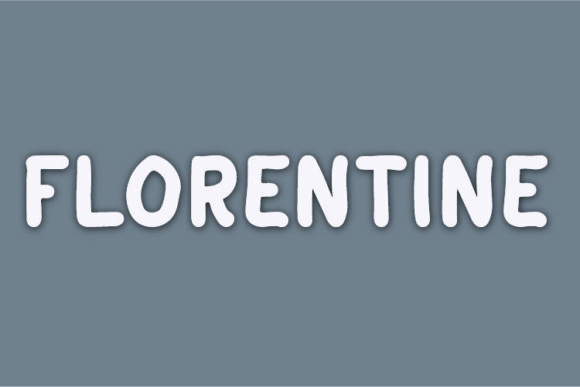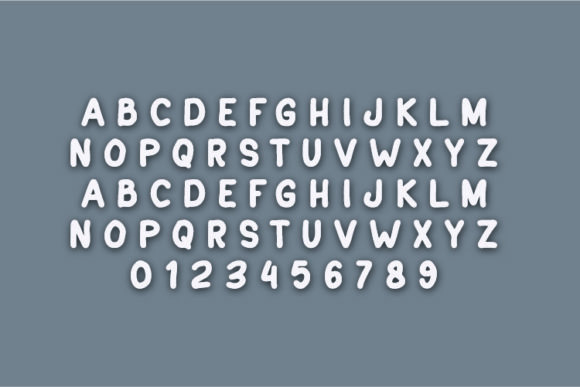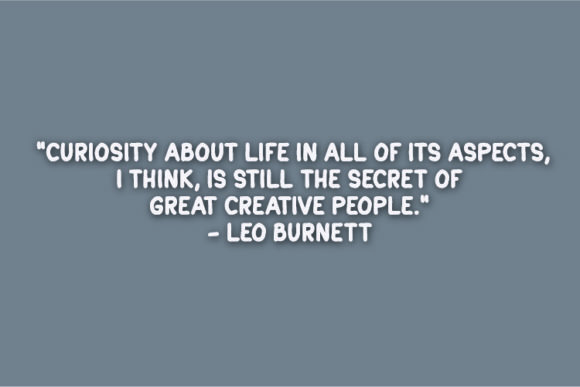
Florentine Font
About Florentine Font
Florentine is a clean and friendly handwritten font. Whether you’re using it for crafts, digital design, presentations, or making greeting cards, this font has the potential to become your favorite go-to font, no matter the occasion!